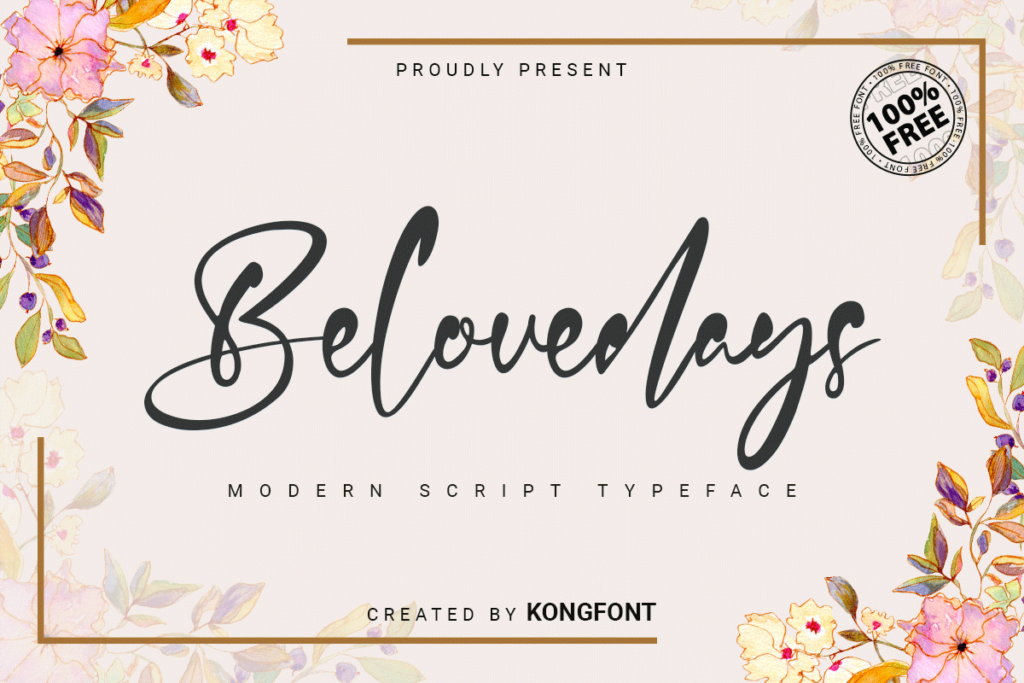
Belovedays Font
Belovedays is a trendy and casual script font. It works great on various designs that require a relaxed and attractive touch. Your options are limitless!
Belovedays Calligraphy Font